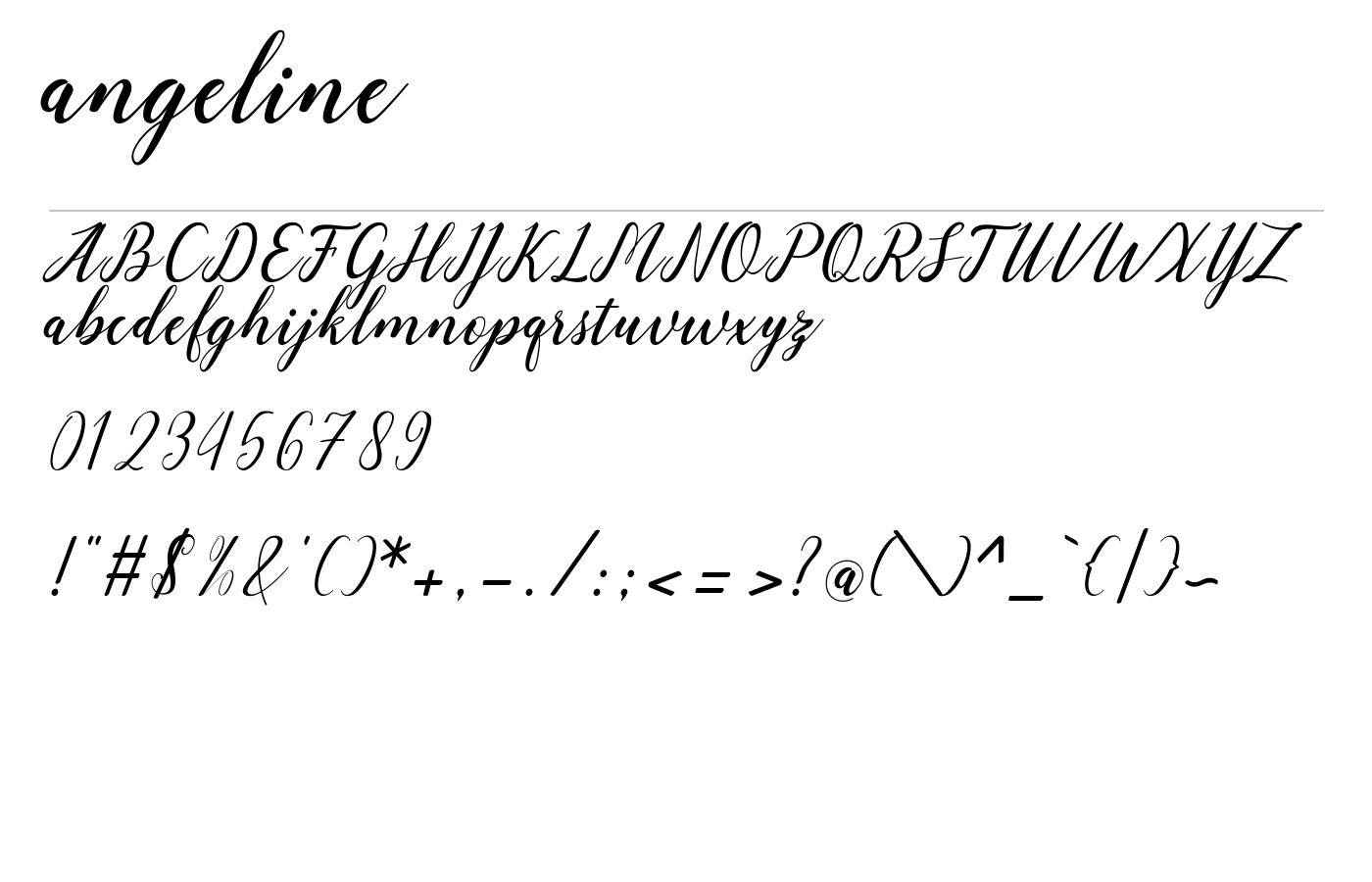
Angeline is a graceful script font characterized by its elegant, flowing strokes and fine, slanted letterforms that evoke a sense of sophistication and charm. Its light weight and high contrast between thick and thin lines give it a delicate yet readable appearance, making it perfect for invitations, branding, and editorial headlines where a refined and stylish impression is desired. This font works especially well in contexts that require a personal, handwritten feel with a touch of classic elegance.
angeline Font